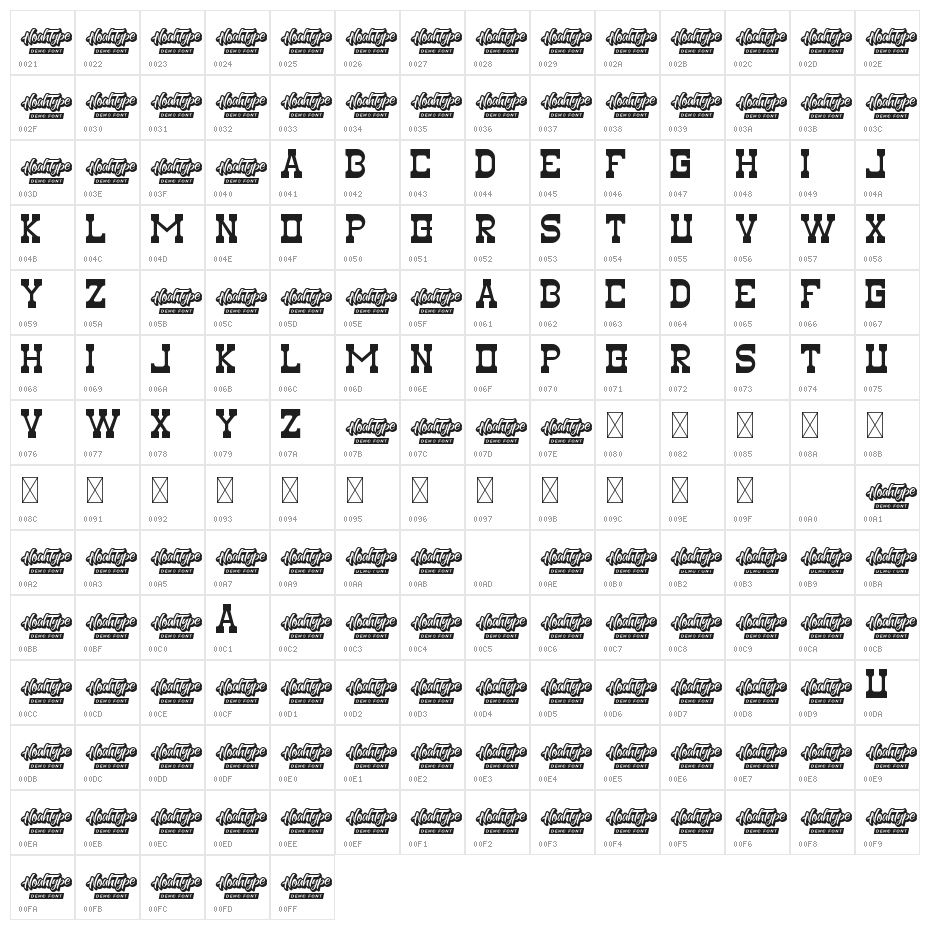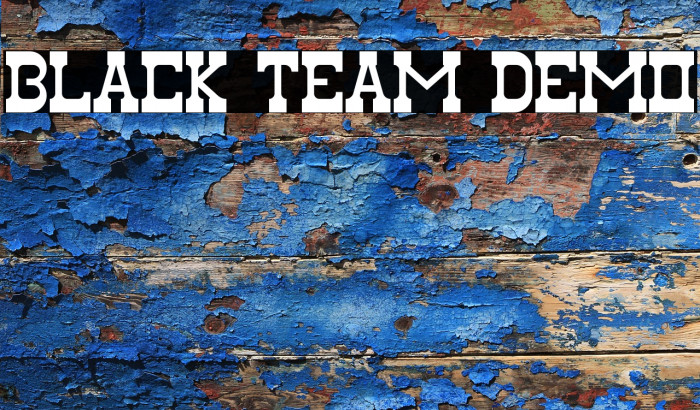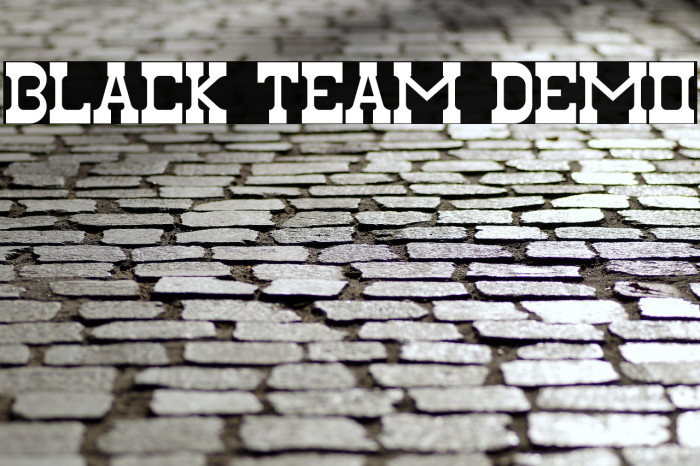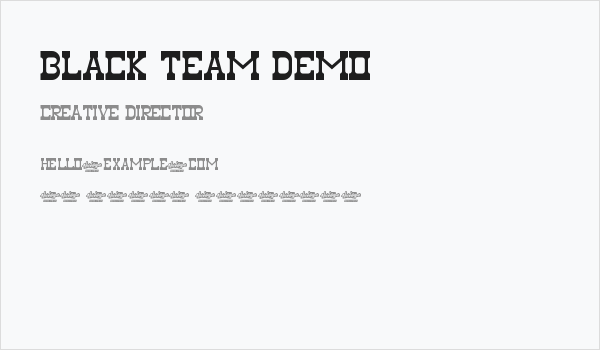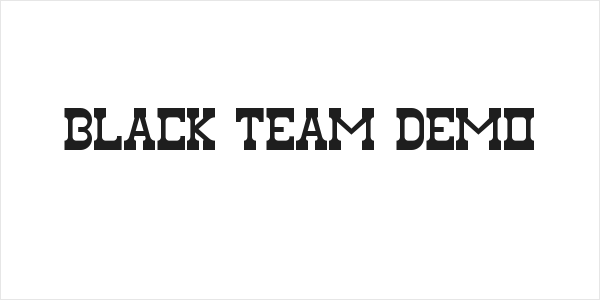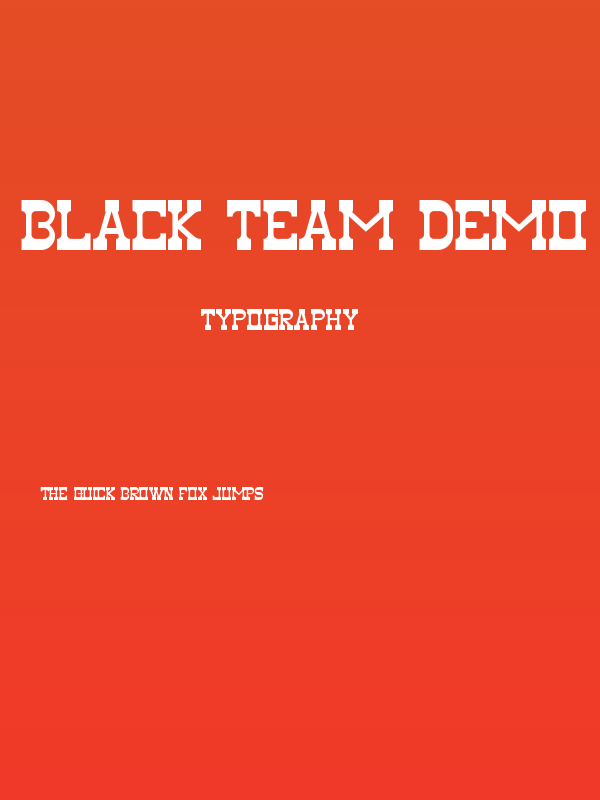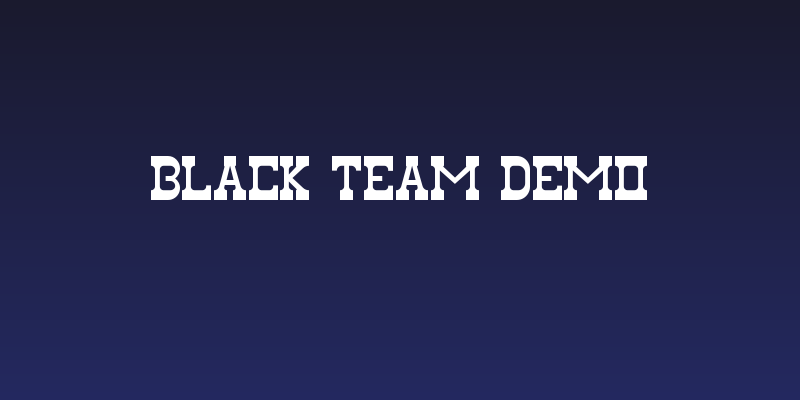
Black Team Demo Font
Black Team Demo Description
This font features a bold and robust design with strong geometric shapes and a slab serif style. The characters are uniformly wide, giving a sense of stability and strength. The uppercase letters are particularly striking, with thick strokes and sharp angles that create a commanding presence. The font's design is consistent across all characters, maintaining a cohesive look. The boldness of the font makes it ideal for attention-grabbing headlines and impactful designs. Its slab serif elements add a touch of classic appeal while still feeling modern and fresh.
| Proposed Projects | Ideal for branding, posters, headlines, and any design requiring a strong visual impact. |